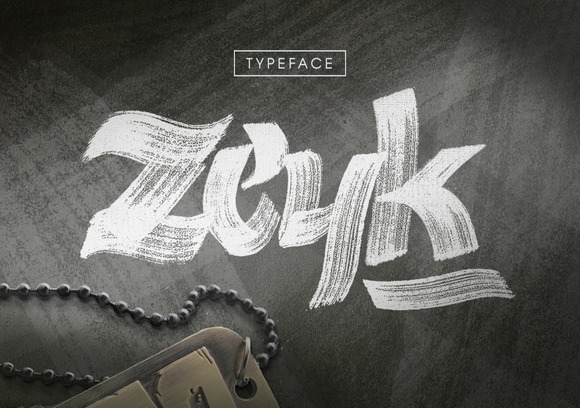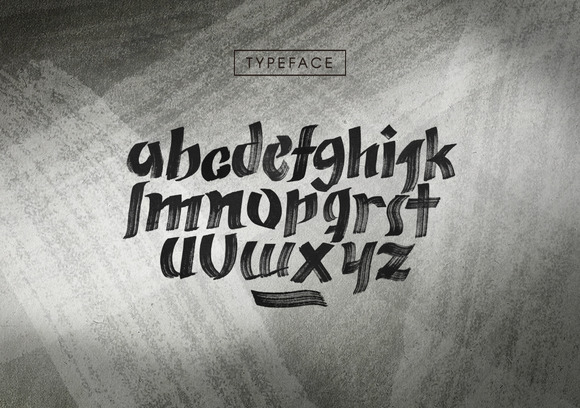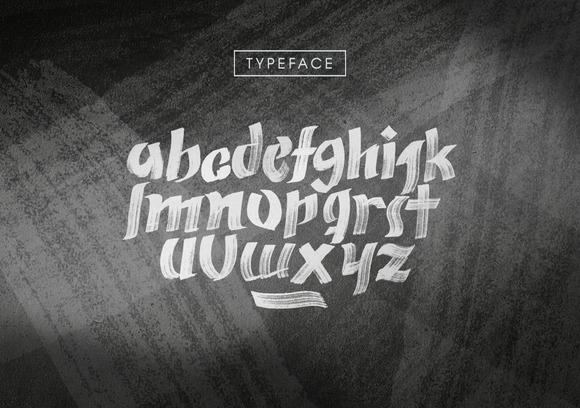
HomeScript FontsZeyk Font Script Fonts Zeyk Font FacebookXPinterestWhatsApp Zeyk Font Poster 2 Zeyk Font Poster 3 About Zeyk Font Zeyk is a strong hand brush font created by Juan Pablo Bello. DOWNLOAD ON CREATIVE FABRICAThis font is sold and delivered by Creative Fabrica. Font Canyon may earn a commission if you buy through this link. People also explored Soulist Font Cokerfill Font Mandala Font Headsound Font Timber Wolf Font Santtina Font Cutie Cupid Font Frog Font Adinda Font 341 0 TagsZeyk Font Previous articleStobau FontNext articleBruship Font LEAVE A REPLY Cancel reply Comment: Please enter your comment! Name:* Please enter your name here Email:* You have entered an incorrect email address! Please enter your email address here Website: Save my name, email, and website in this browser for the next time I comment. Personal Use Free Avagan Personal Use Free Read more about this font Screengem Personal Use Free Read more about this font Earwig Factory Personal Use Free Read more about this font Brittish State Personal Use Free Read more about this font BLOG Fonts That Capture the Spirit of New York City New York City is more than just a place—it’s an experience, a rhythm, a visual language... Top 10 Handwritten Fonts That Elevate Your Designs Exploring Font Trends Elegant Wedding Invitation Fonts – Handwritten & Script Fonts